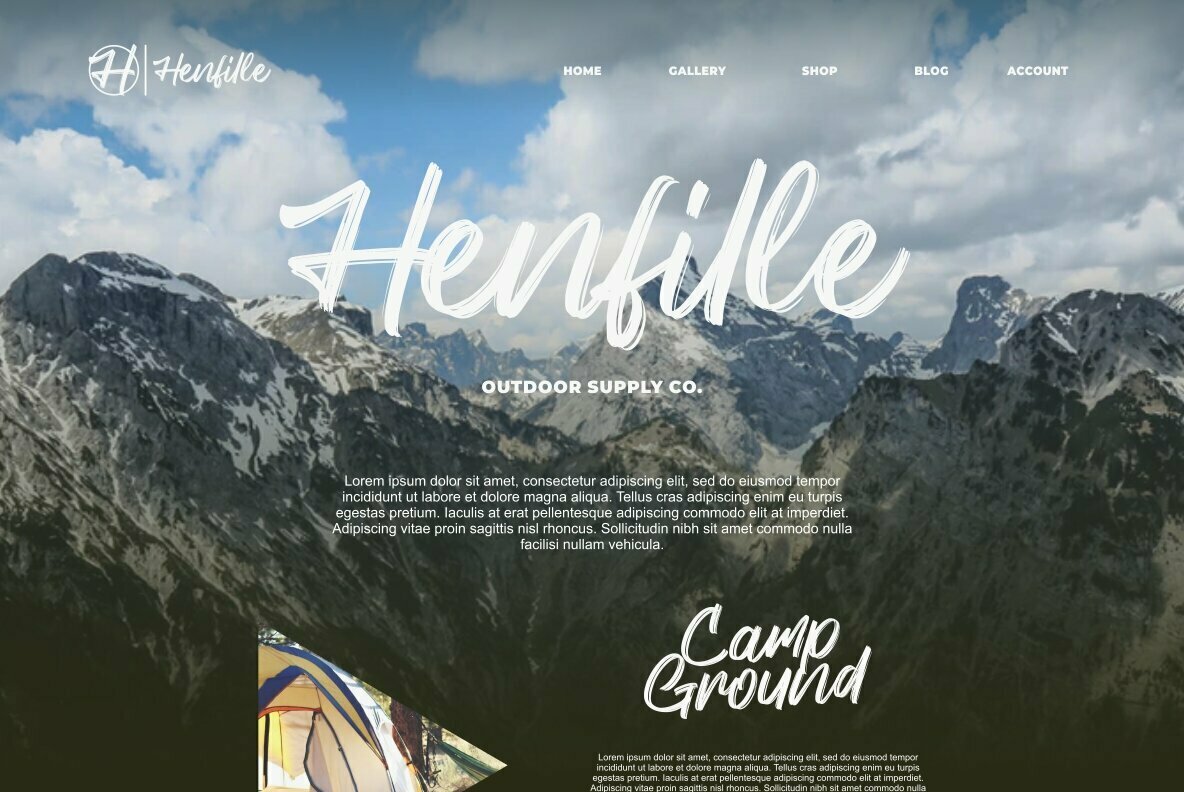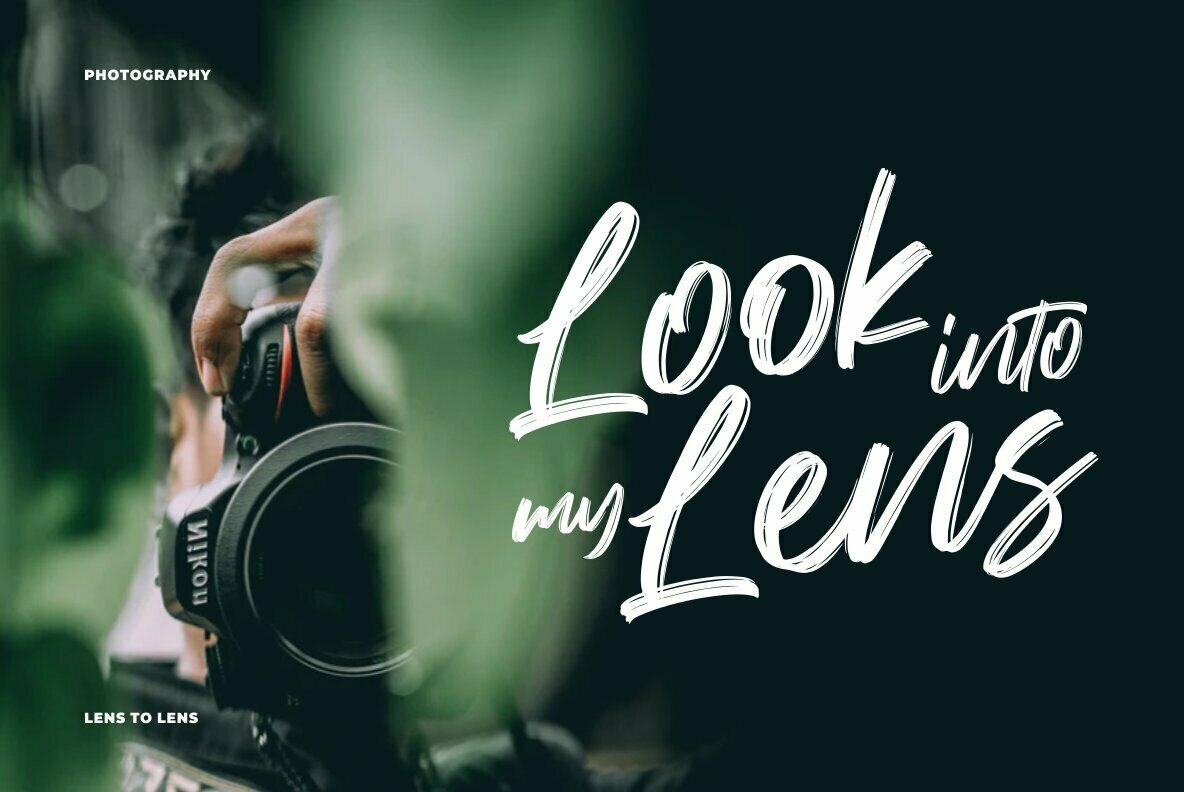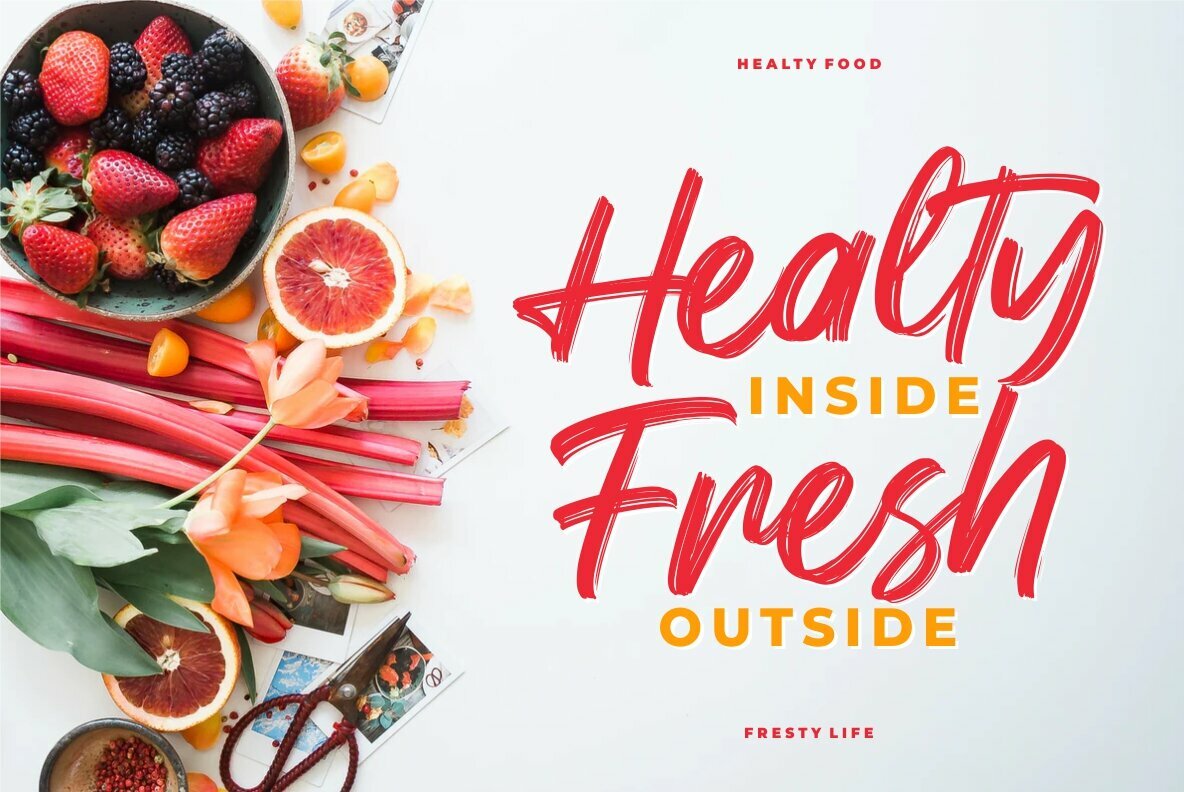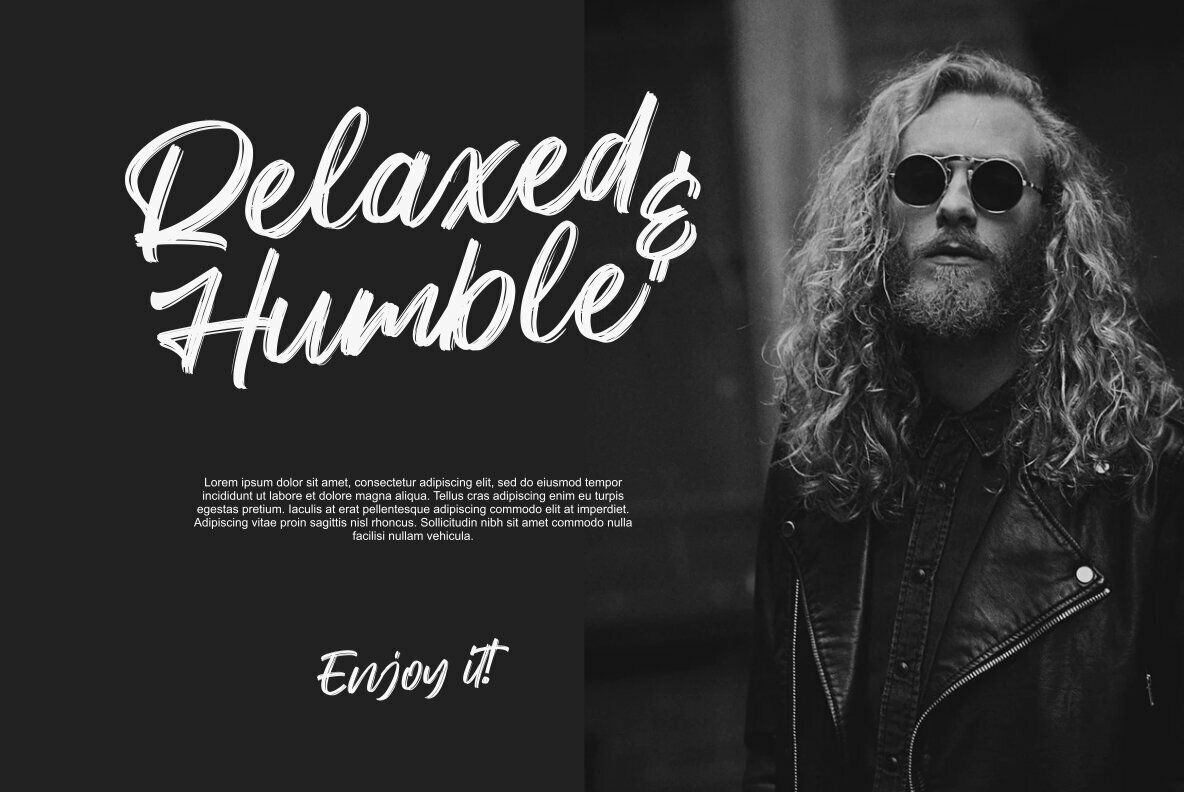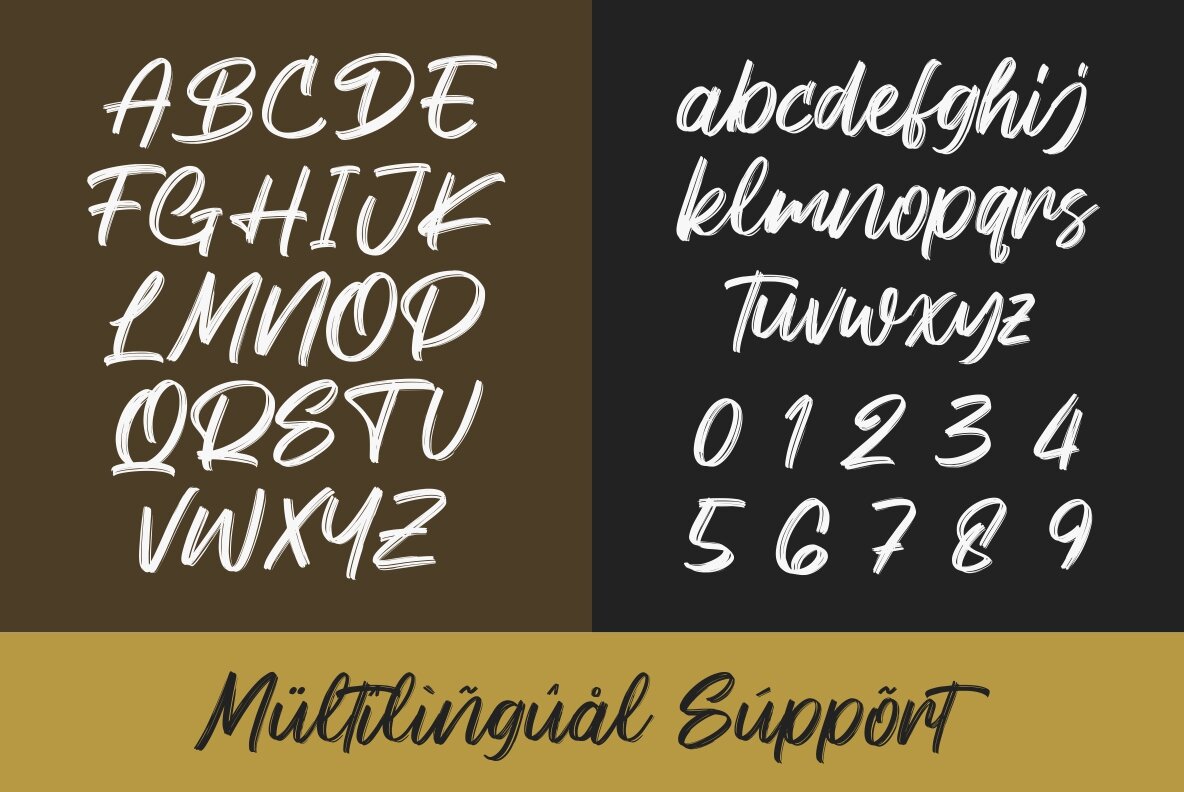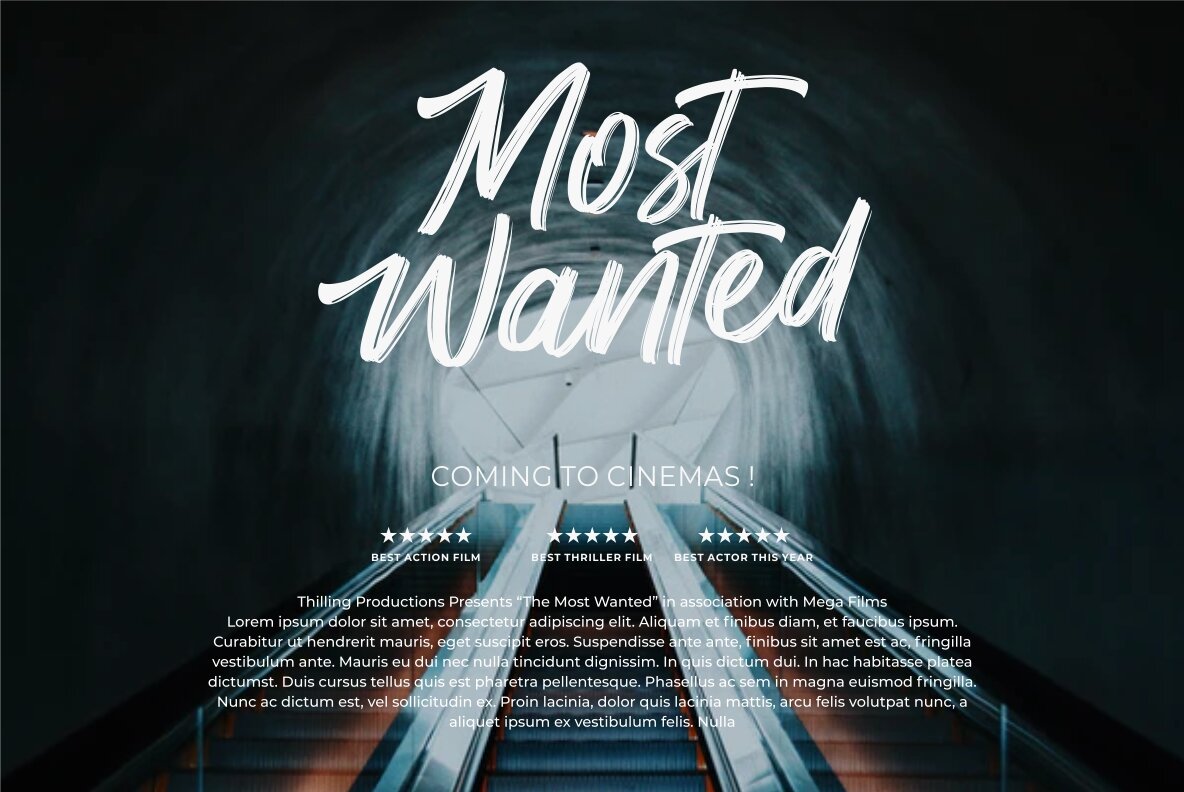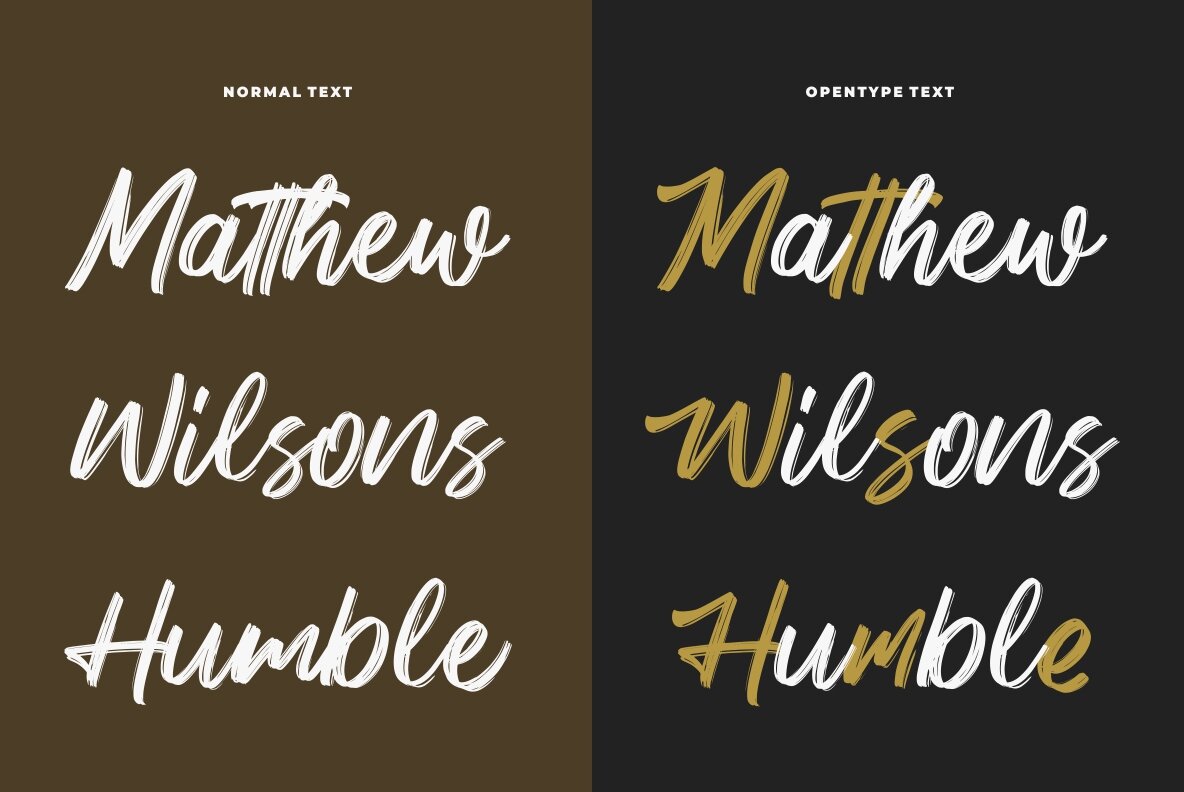
Keypass Font
Keypass
Keypass merges engaging curves with a distinctive urban flair, offering a script font that enhances the appeal of logos, branding, and social media graphics. Its fresh, handbrush style is perfectly suited for product packaging, merchandise, and handwritten quotes, making it a versatile choice for diverse design needs.Keypass: Urban Edge Handbrush Font